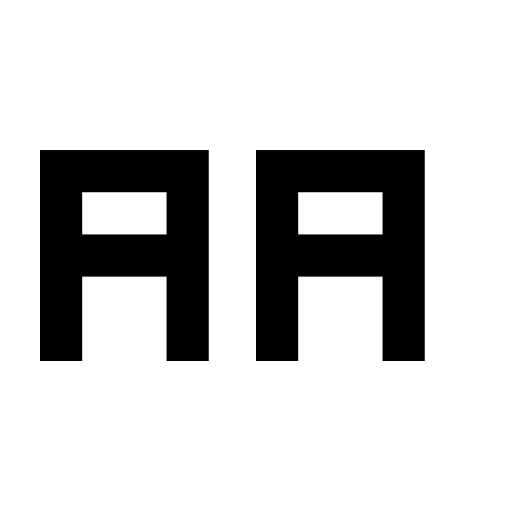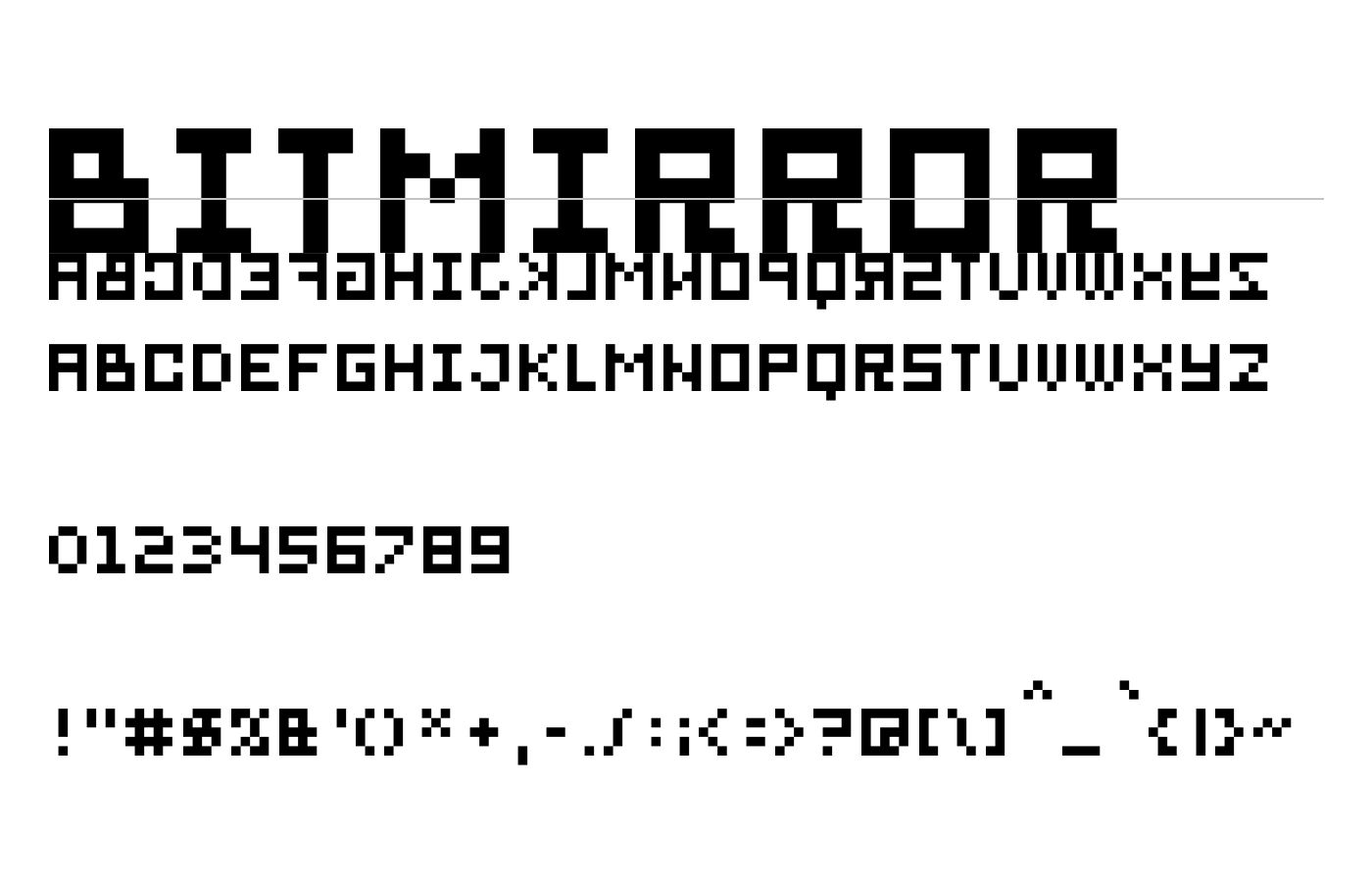
Bitmirror is a bold, monospaced pixel-style font with a distinctively digital and blocky character. Its rigid, squared forms and consistent stroke weight give it a retro, tech-inspired feel ideal for gaming, coding interfaces, or nostalgic digital designs. This font is perfect for logos, headlines, and creative projects where a strong, modern pixel aesthetic is desired.
bitmirror Font